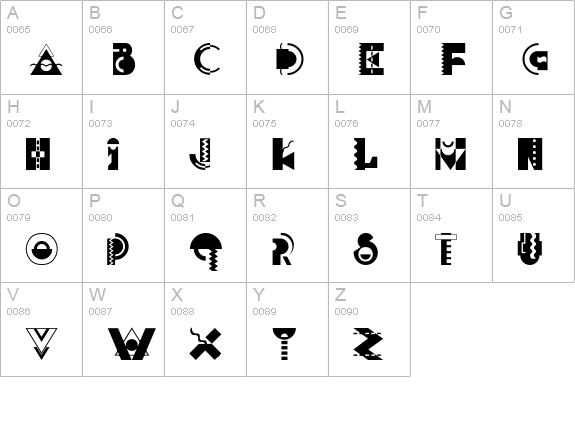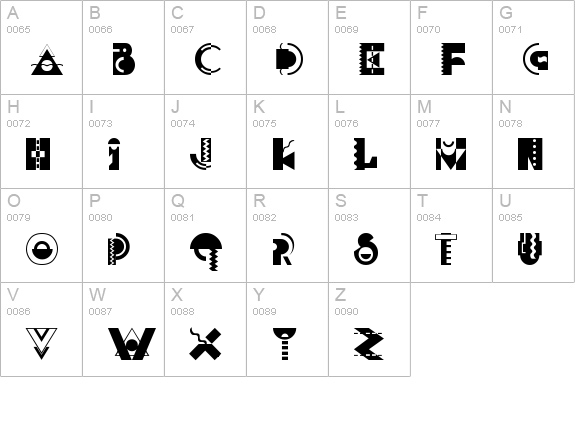
MemphisDisplay Font Details
Introducing MemphisDisplay font, a sleek and modern typeface designed to make a bold statement in your designs. This versatile font is perfect for creating eye-catching headlines, posters, logos, and more. With its clean lines and contemporary feel, MemphisDisplay is sure to grab attention and elevate your projects to the next level. Best of all, MemphisDisplay is available for free download at FontsMarket.com. So you can start using this stylish font right away without any cost. Don't miss out on the opportunity to add MemphisDisplay to your font collection and take your designs to new heights. Download it today and let your creativity shine with this amazing typeface.